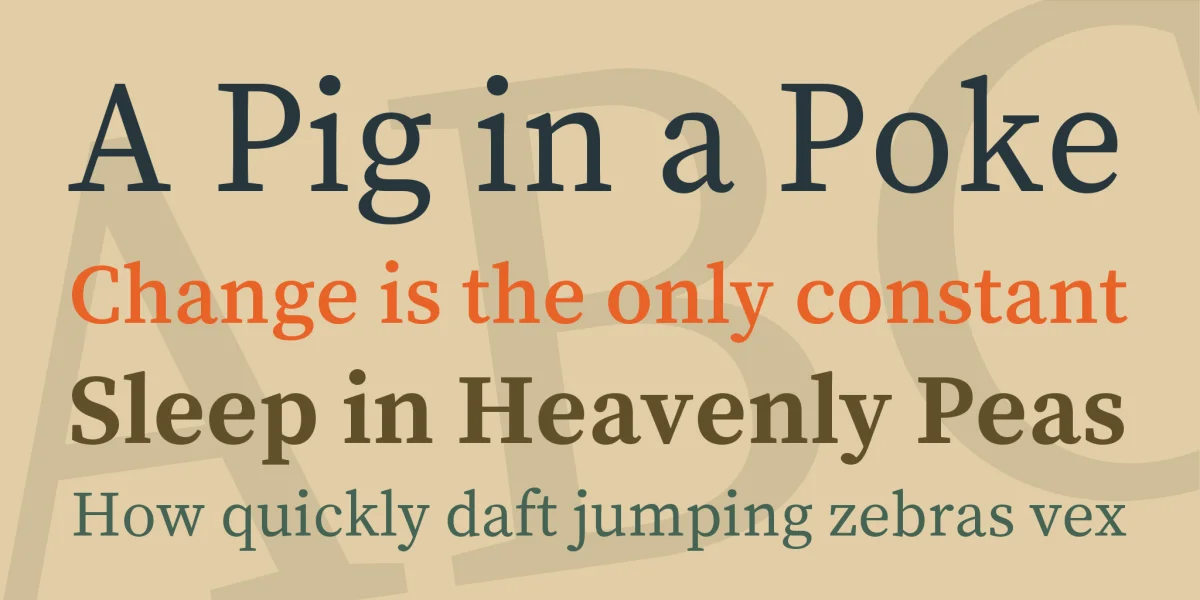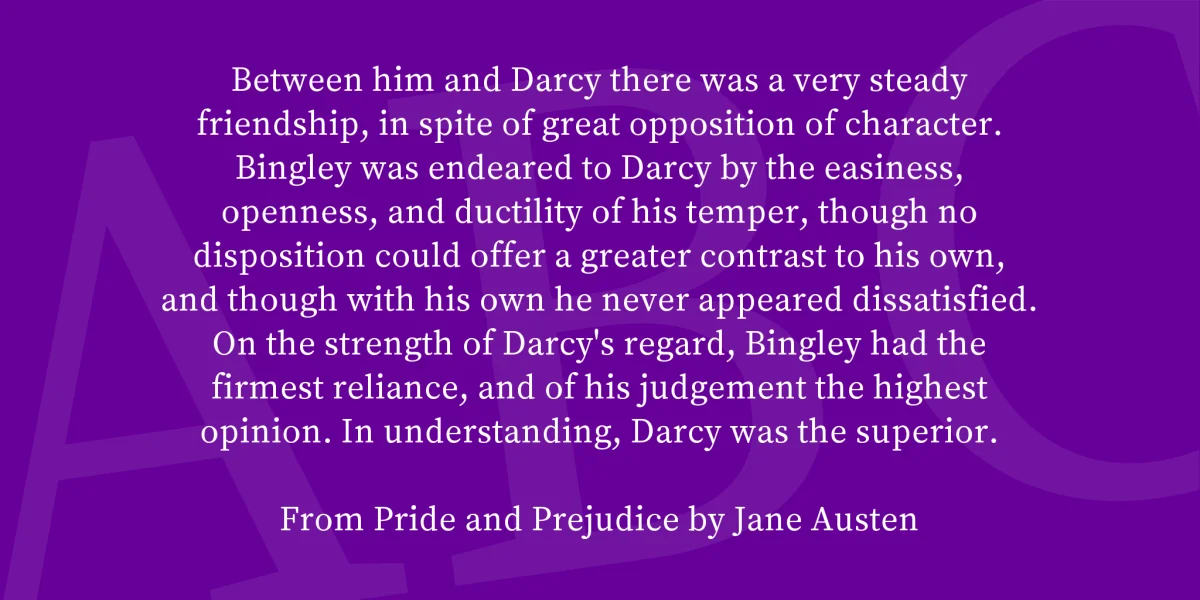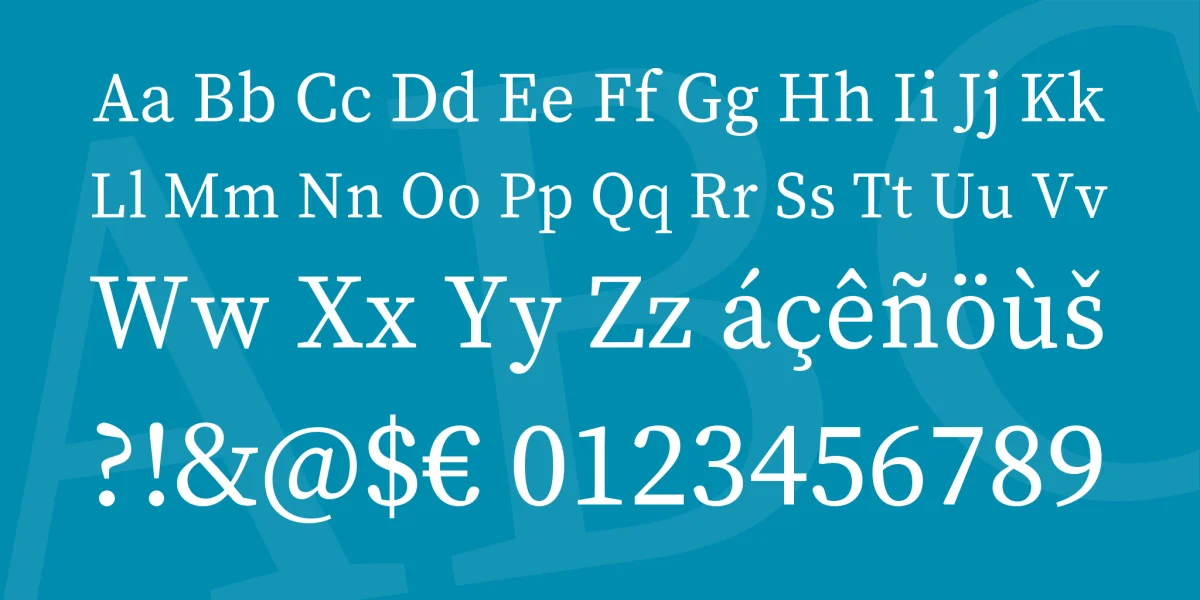
Source Serif Pro is a serif typeface in the transitional style, designed to complement Source Sans. Their close companionship is achieved by a careful match of letter proportions and typographic color. While designed to harmonize with its serif-less counterpart, Source Serif often takes its own direction, in part because the two are inspired by different historical precedents. Source Serif is loosely based on the work of Pierre Simon Fournier, and many idiosyncrasies typical to Fournier’s designs (like the bottom serif on the b or the middle serif on the w) are also found in Source Serif. Without being a pure historical revival, Source Serif takes cues from the Fournier model and reworks it for a modern age.
Source Sans and Source Serif also have different personalities because they spring from the hands of different designers. Source Serif was designed by Frank Grießhammer, Source Sans was designed by Paul Hunt. Robert Slimbach consulted on both designs, which helped maintain the overall family harmony. Either design feels confident on its own but also works in combination with the other — just like their designers do.
Source Serif continues Adobe’s line of high-quality open source typefaces. Designed for a digital environment, the letter shapes are simplified and highly readable. Its historical roots, combined with the guidance through an experienced designer give the typeface a strong character of its own that will shine when used for extended text on paper or on screen.